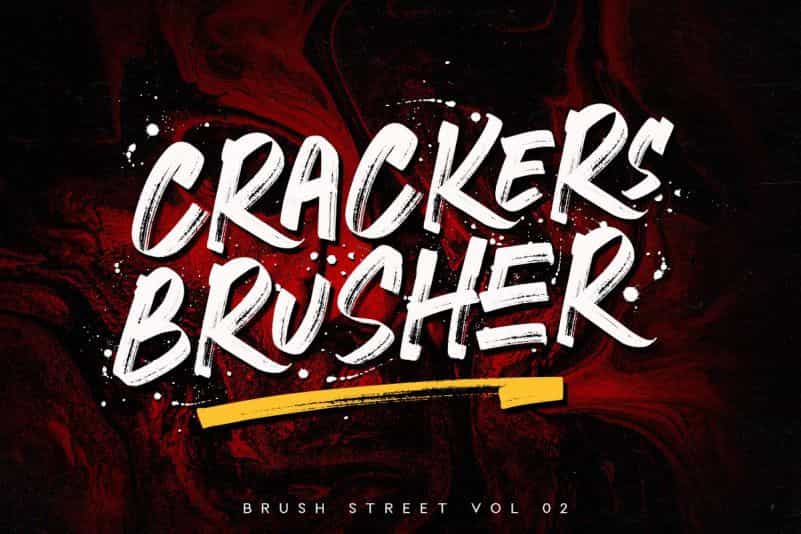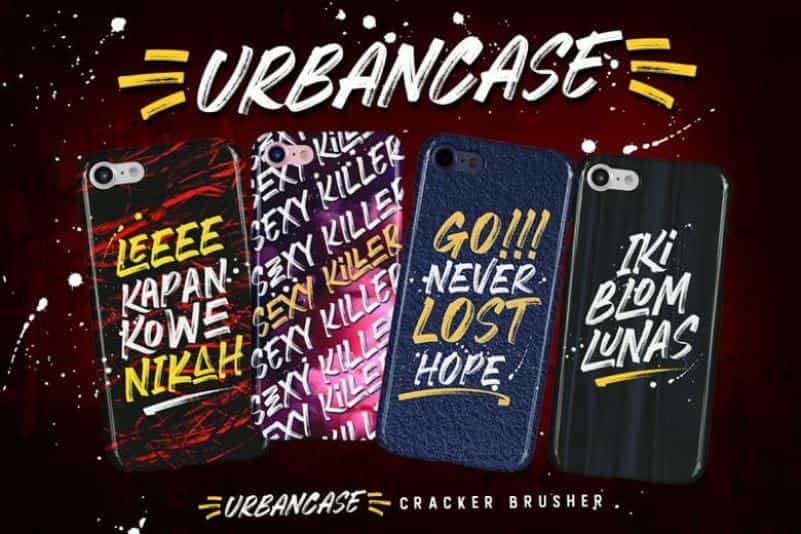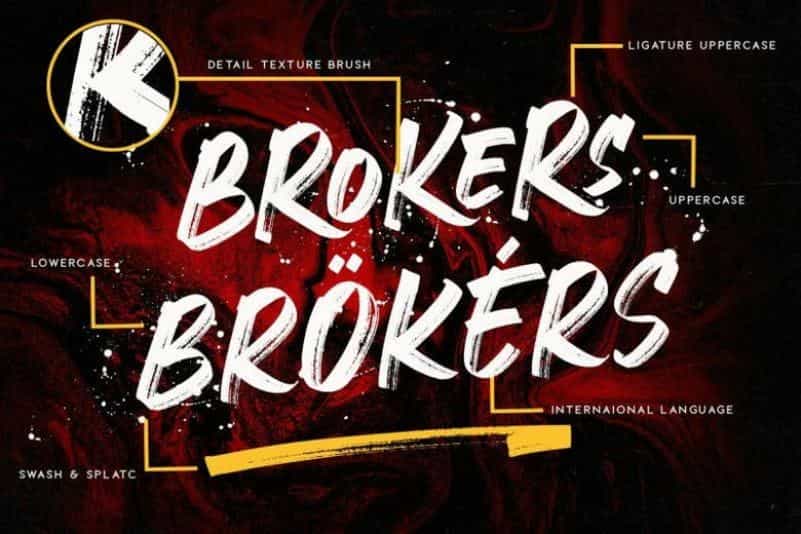
Discover Crackers Brusher Font, part of the Brush collection—a versatile and unique font perfect for adding a personal touch to your projects. Download it for free and enjoy crafting designs with style, from invitations to social media posts. This font is available exclusively for personal use, giving you the freedom to create without limits. Unlock your creativity with Crackers Brusher Font today!
This is a brush font that has been supercharged and it is full of inline striping modern style. Which is your next place to go?Starts your journey!Invites you to the new product Crackers Brusher – A street of brushes! It is created and distributed by MLKWSN.